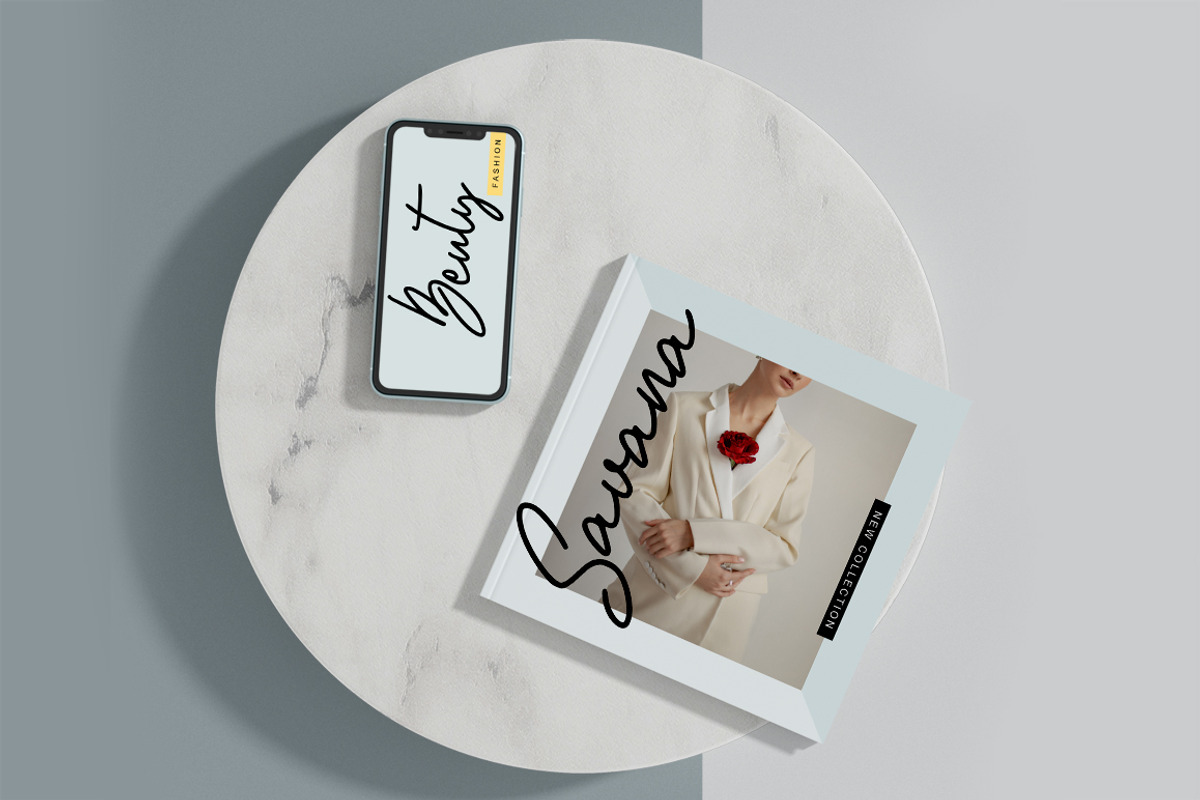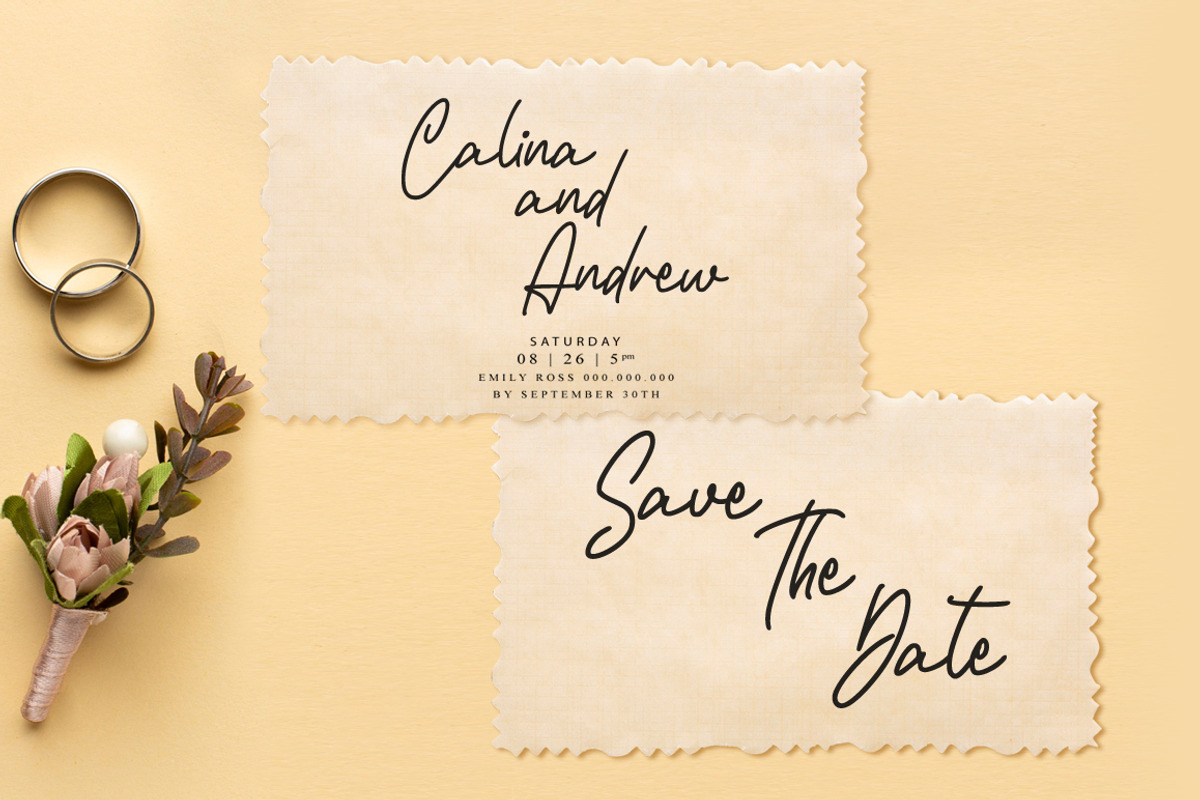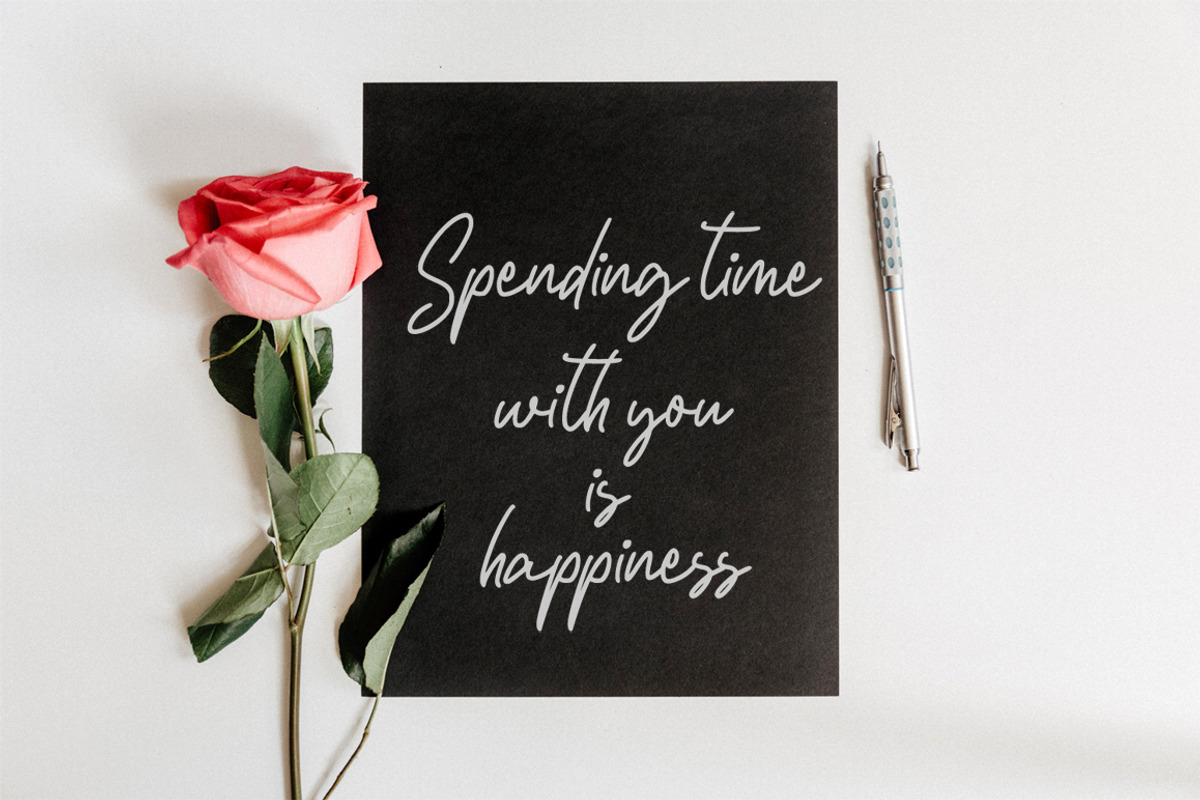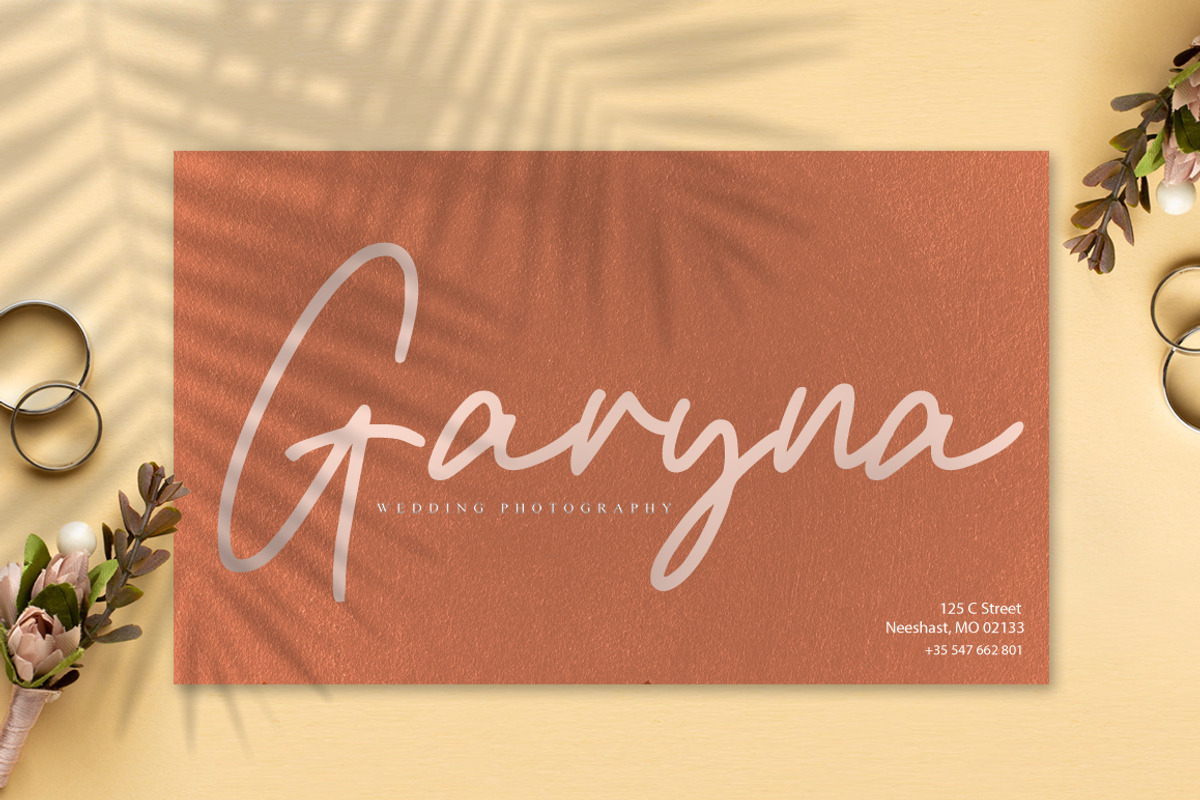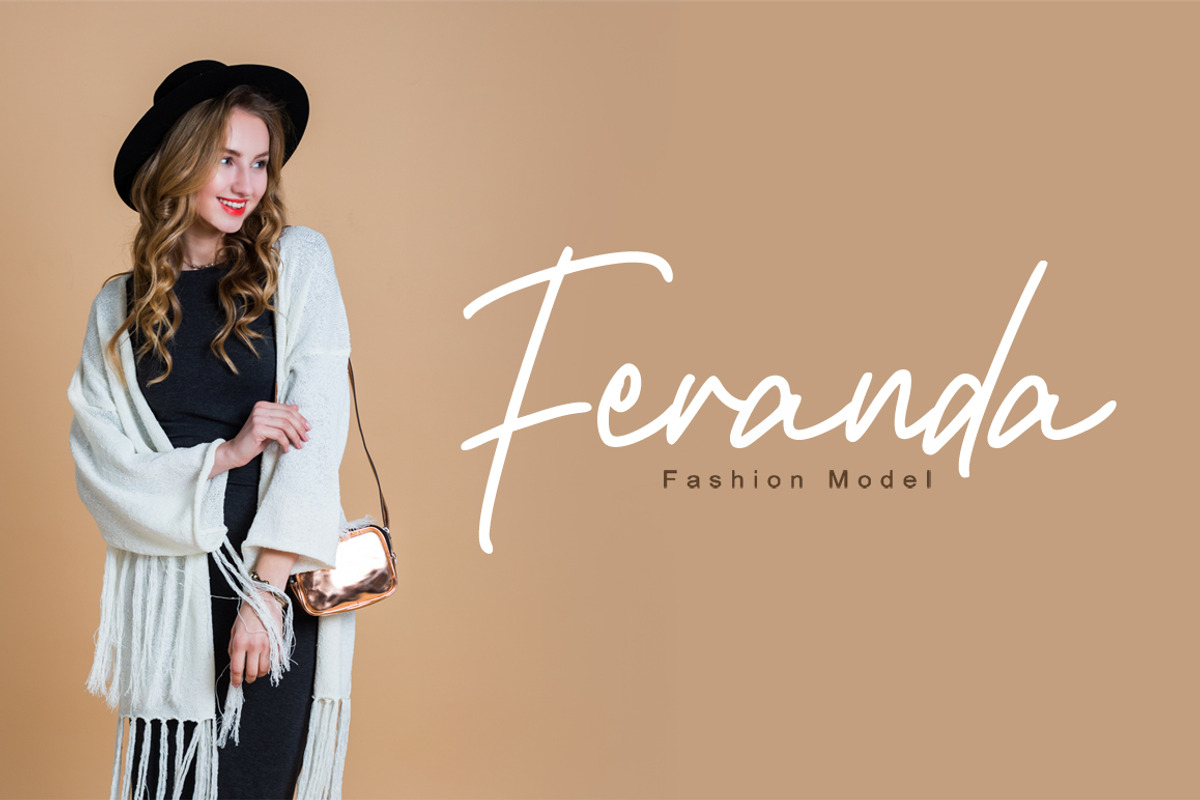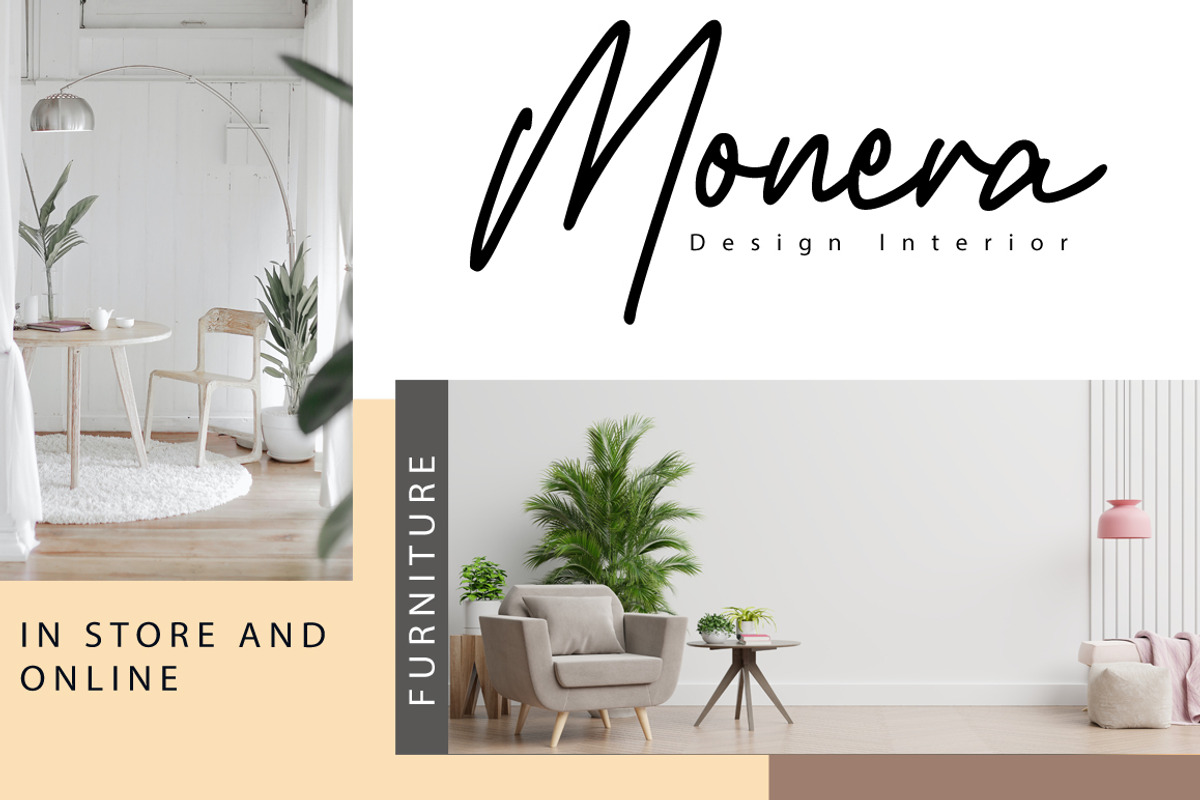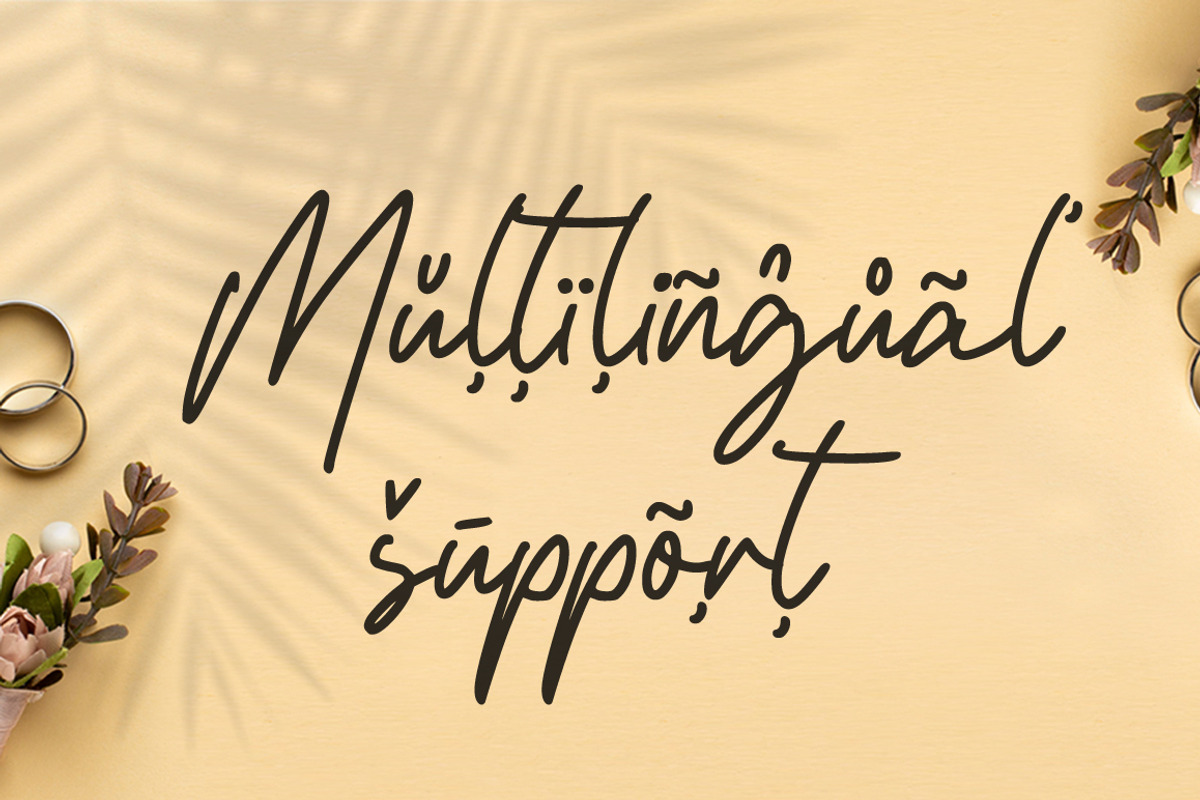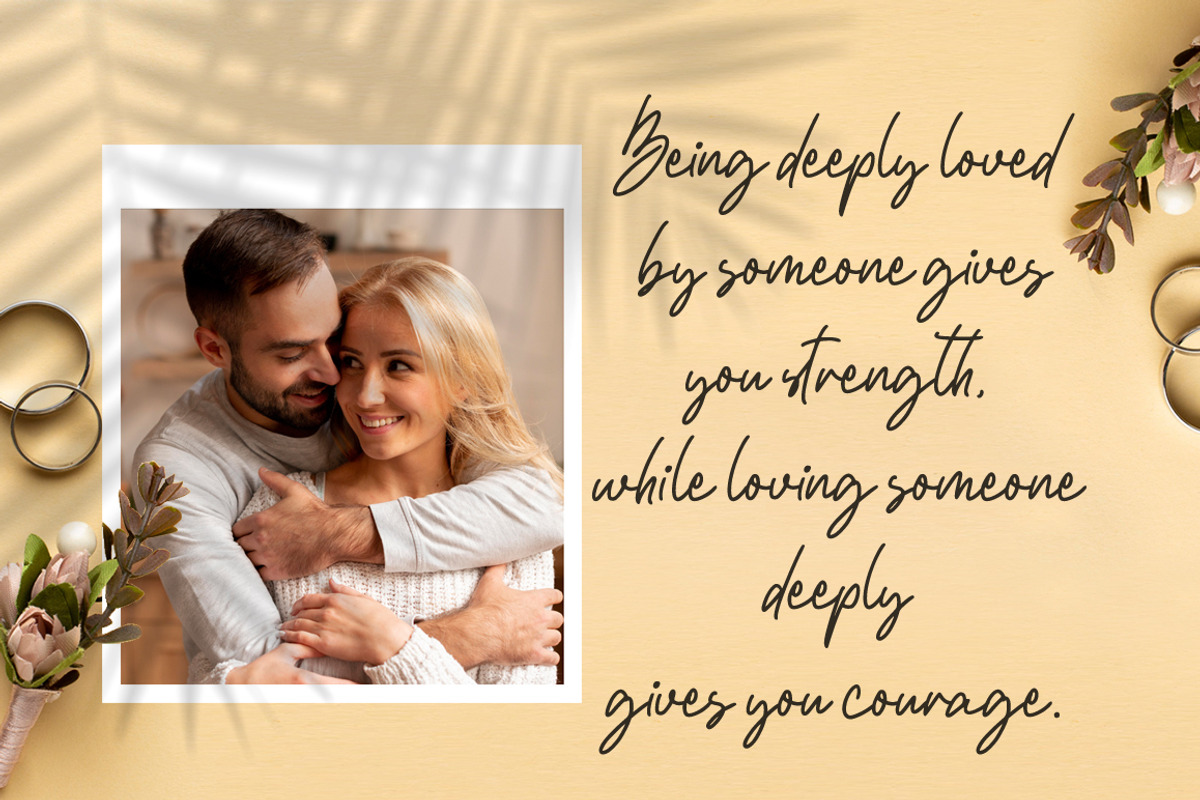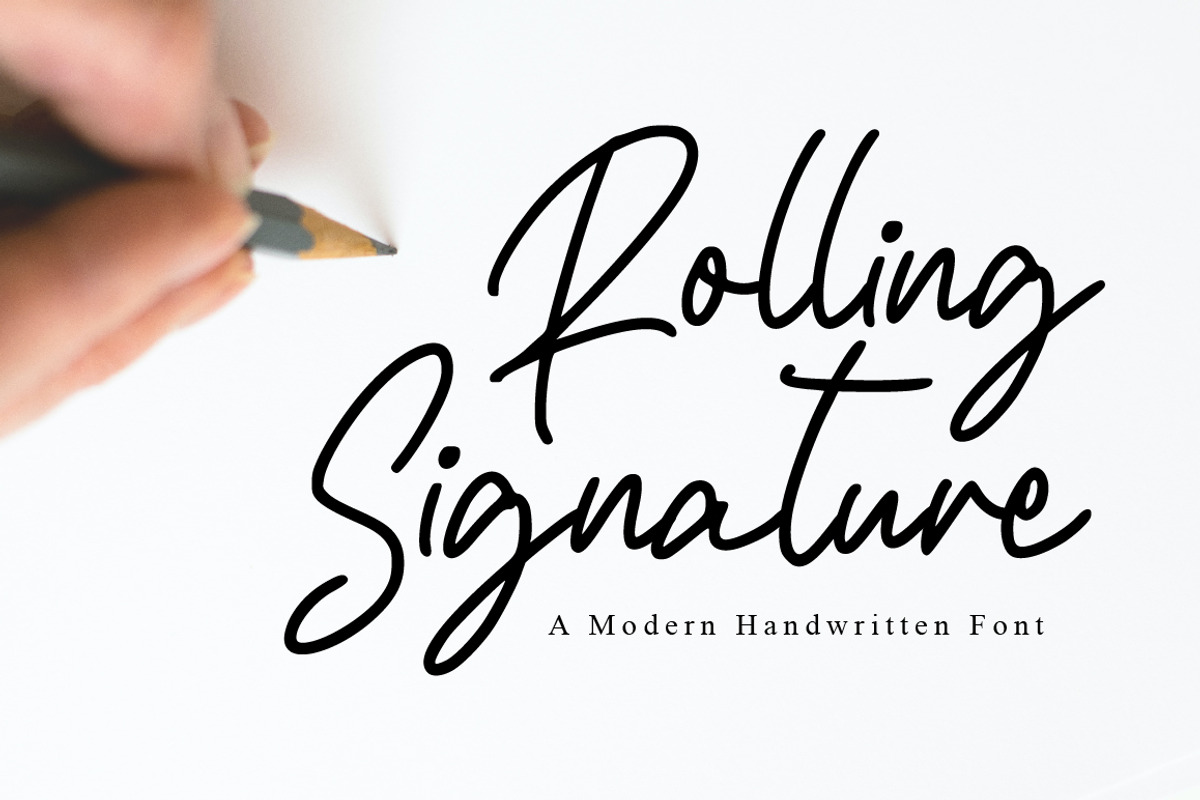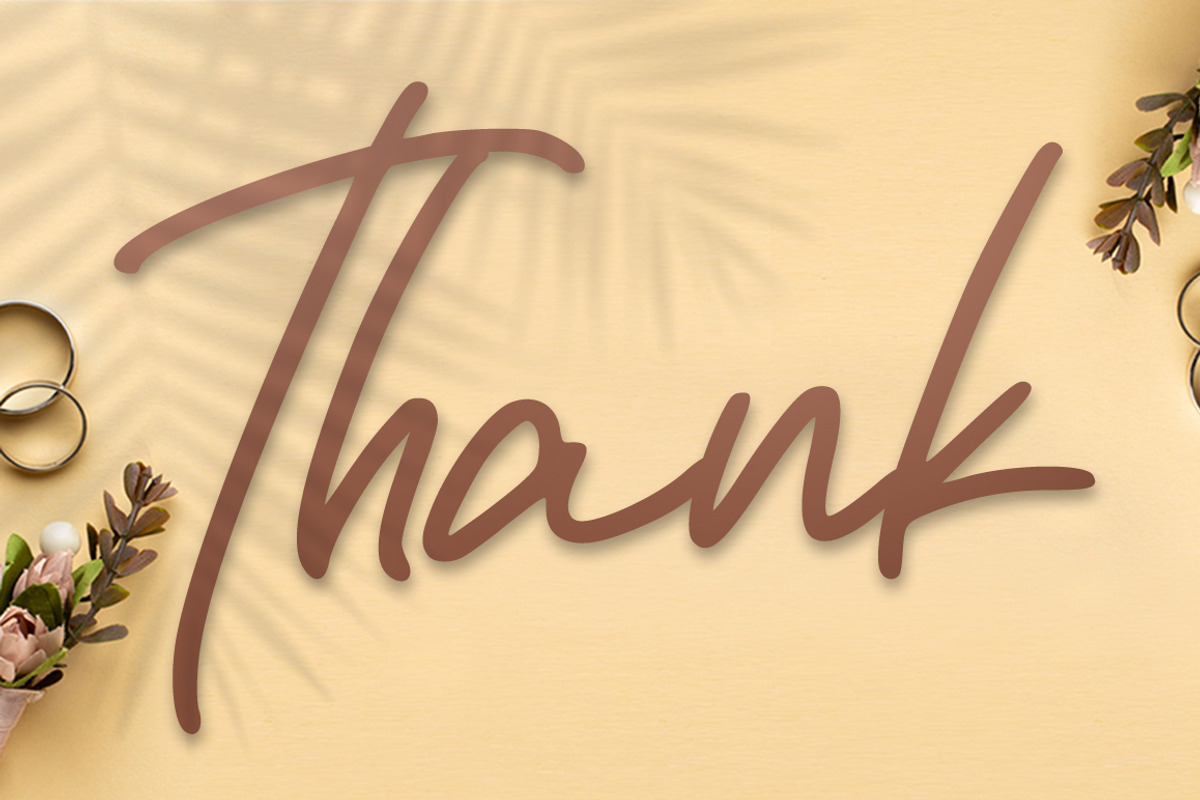
Rolling Signature
Rolling Signature is a beautiful light handwritten font with a unique feel and a stunning impact. It will add a luxury spark to any design project that you wish to create! This font is PUA encoded which means you can access all of the amazing glyphs and ligatures with ease!